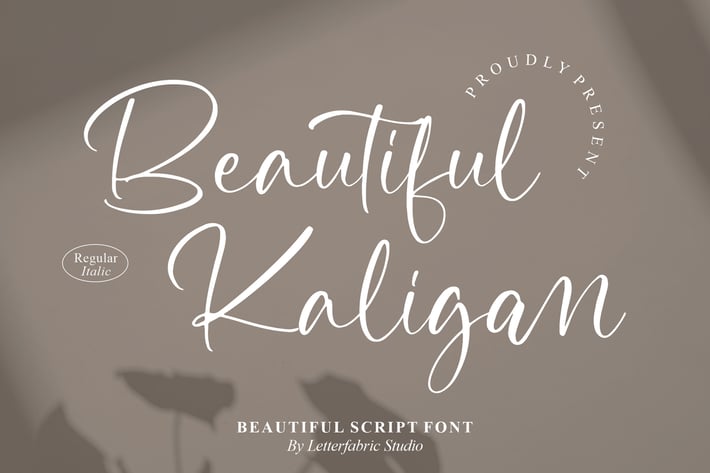
Beautiful Kaligan Script Font
Beautiful Kaligan Script Font is an elegant handwritten script with smooth curves and a refined modern touch. Its flowing strokes and versatile style make it perfect for projects that need sophistication while remaining approachable and stylish.
+ Graceful handwritten script with natural rhythm
+ Includes Regular & Italic styles
+ Branding & logo design
+ Wedding invitations & stationery
+ Fashion campaigns & social media posts
+ Posters & lifestyle projects
+ Editorial or promotional designs
Refined elegance meets timeless charm with Beautiful Kaligan – a script font that elevates every design.